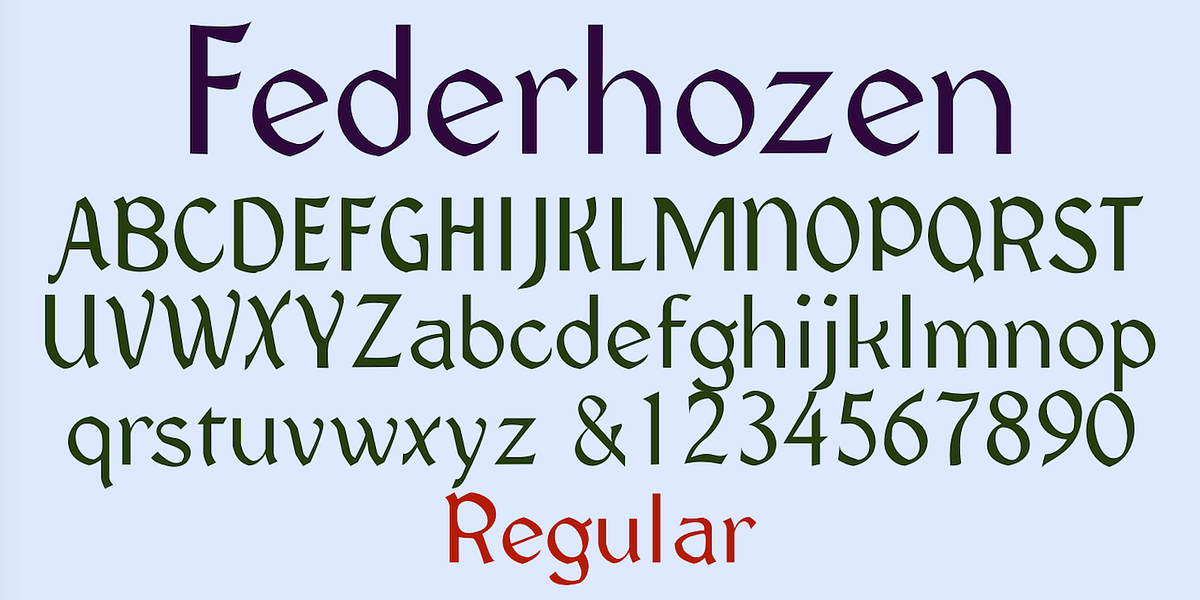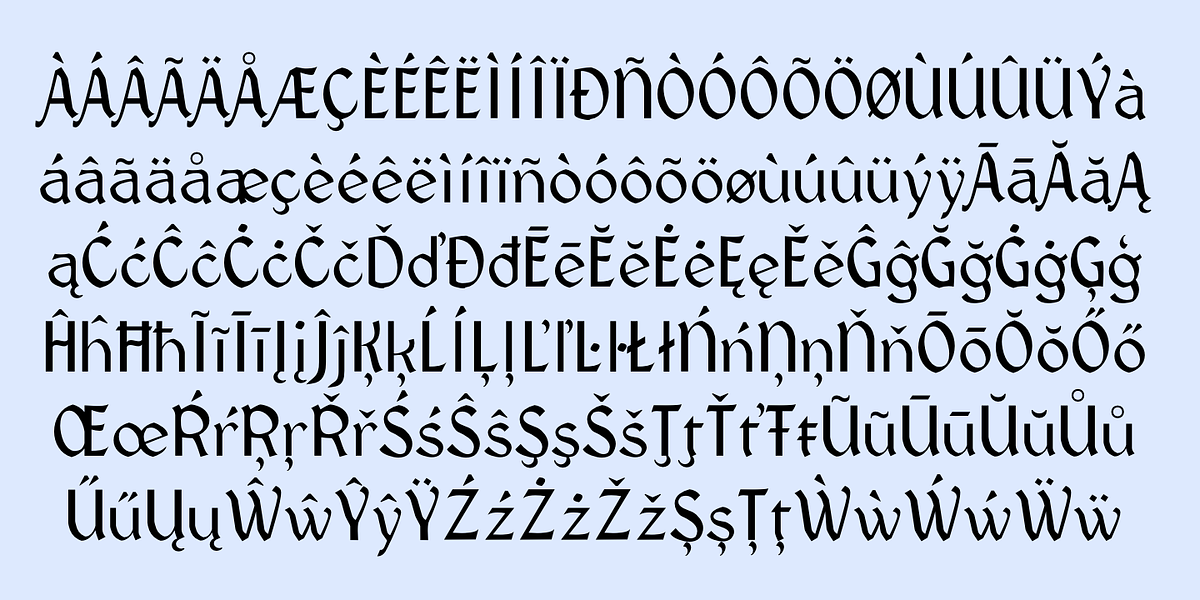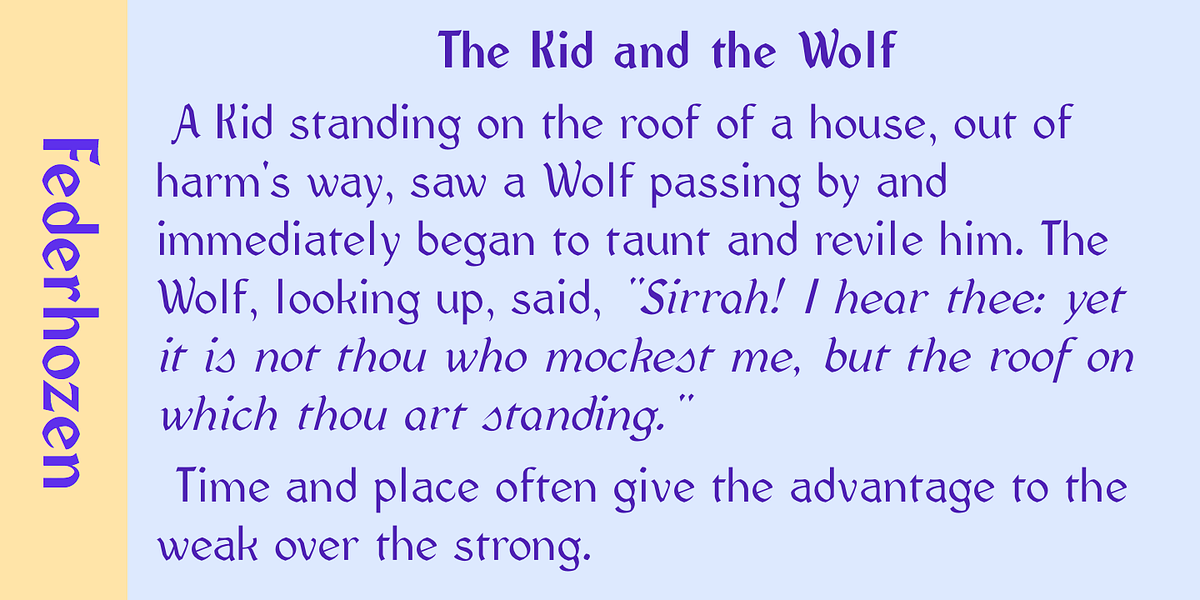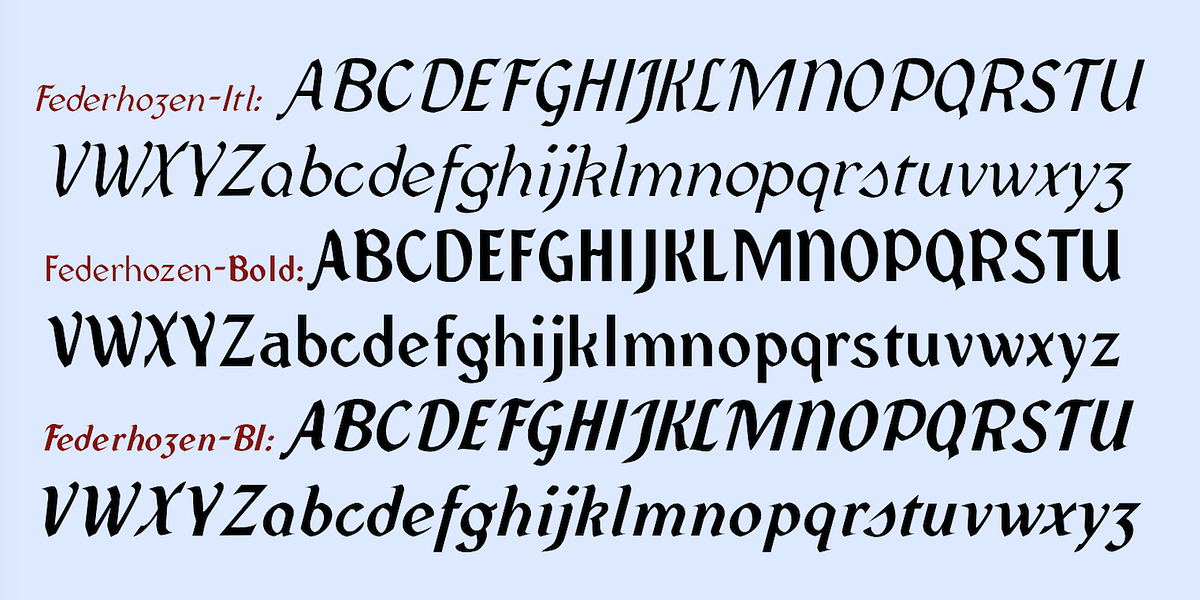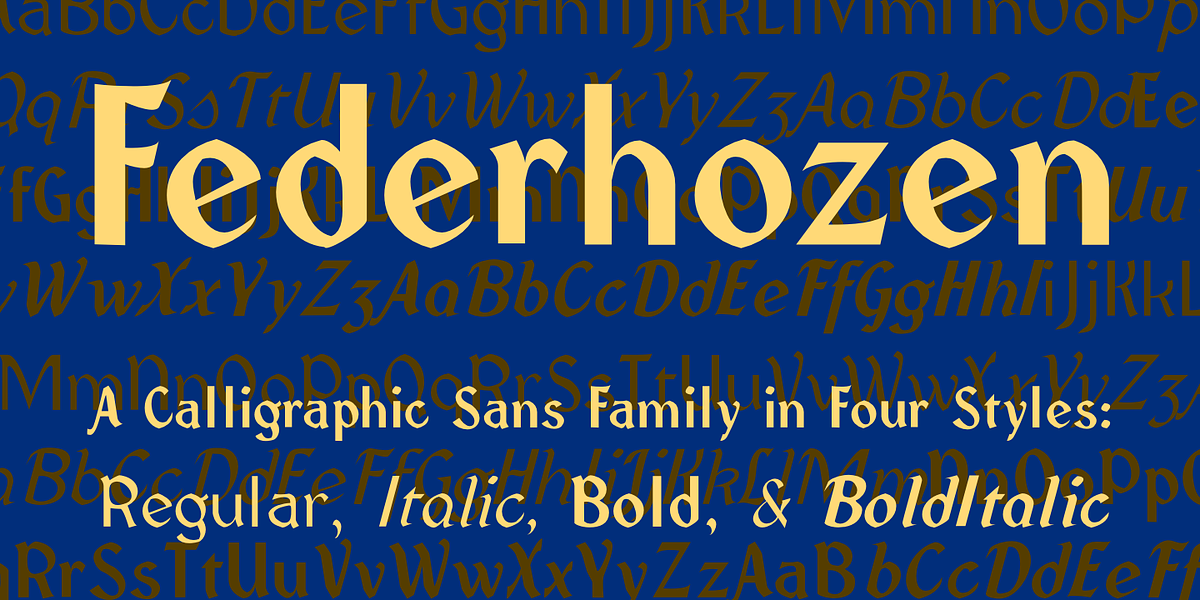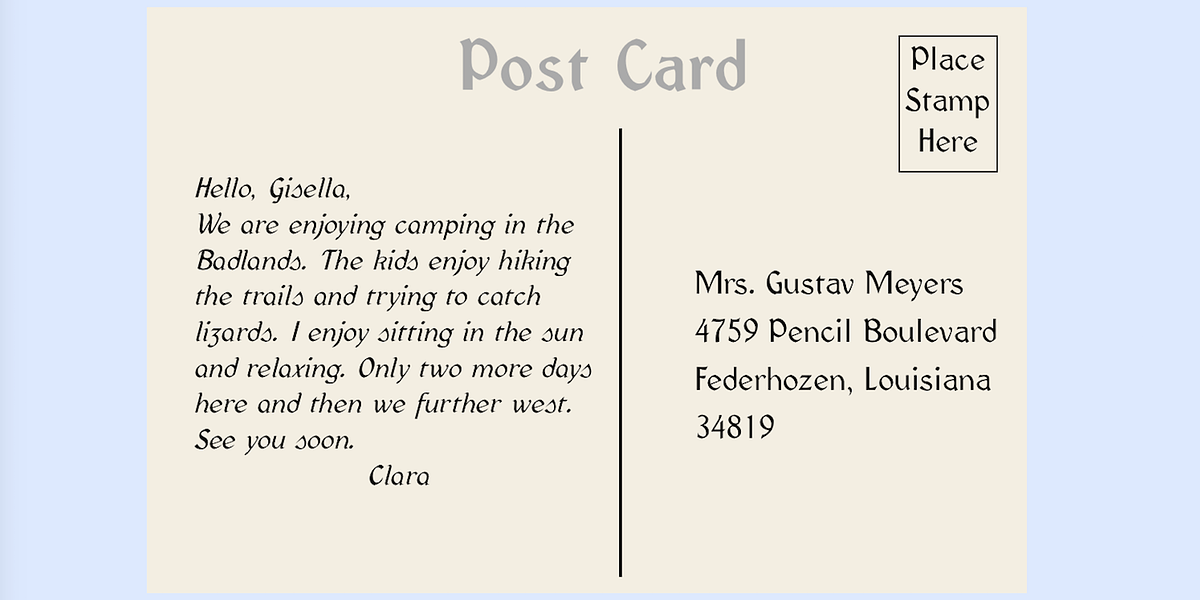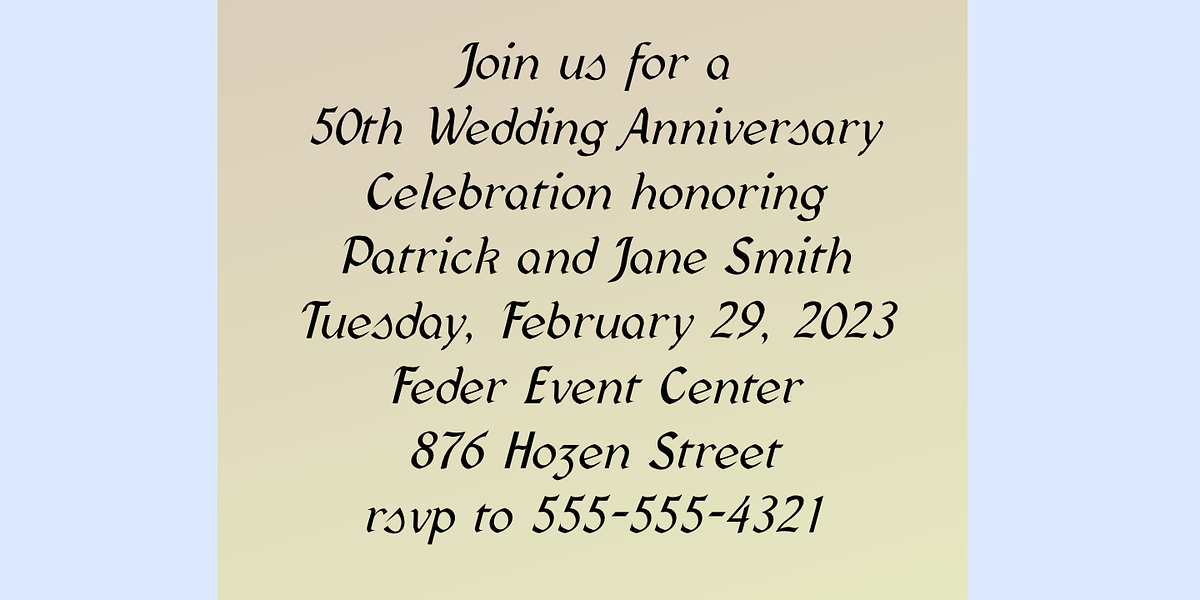
Federhozen
Federhozen is a calligraphic display font that aims to replicate the look of neat hand lettering. While not a true script, its italicized form leans towards a calligraphic style. It's designed for readability even at smaller sizes, making it suitable for various applications like branding, headlines, and invitations where a casual and approachable feel is desired.